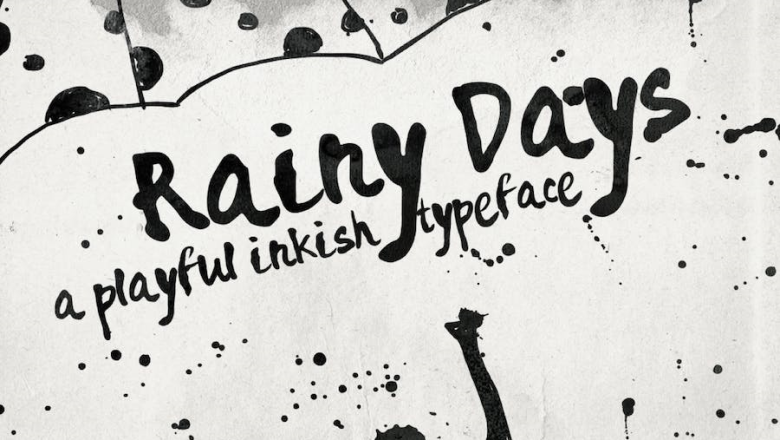
Rainy Days - A Playful Typeface
• فضای بین حروف :
Normal
• سبک :
N/A
• مورد استفاده پیشنهادی :
Large (Display / Poster)
Rainy Days – a playful inkish typeface. This type was made by hand with black indian ink. I also added an ink drops and splashes to add more hand painted look and feel.